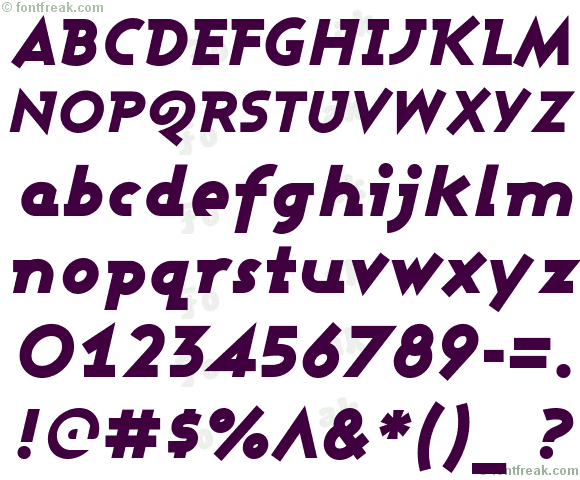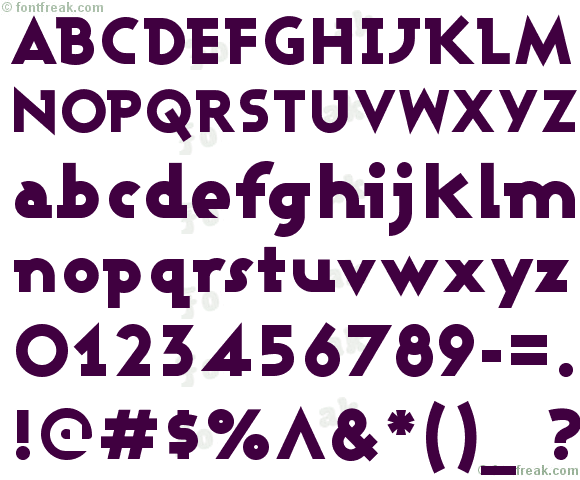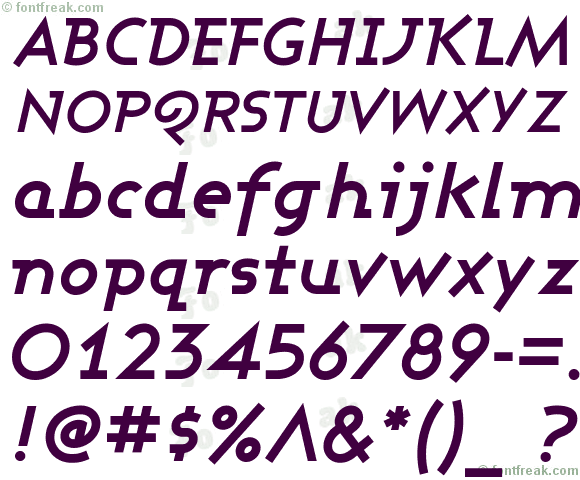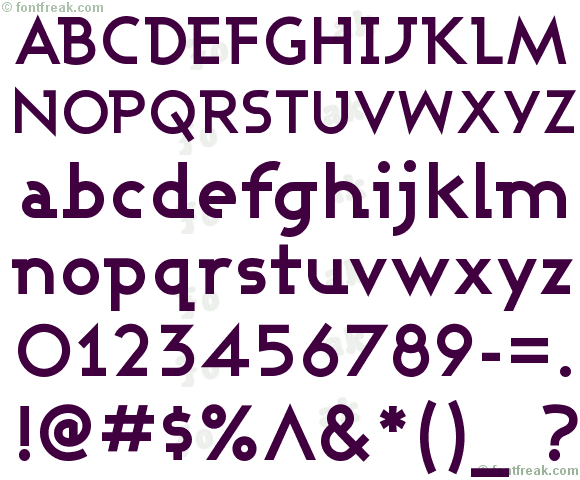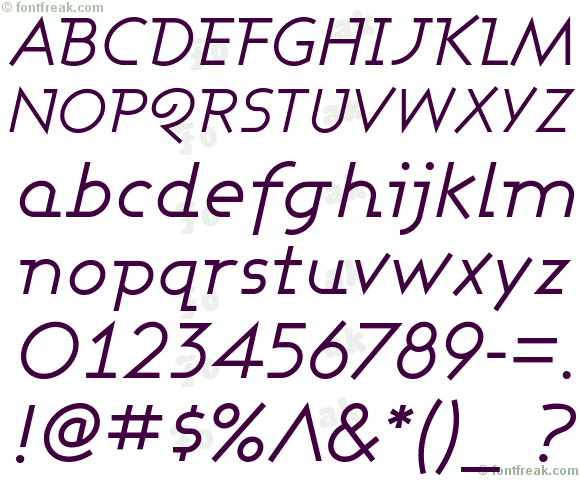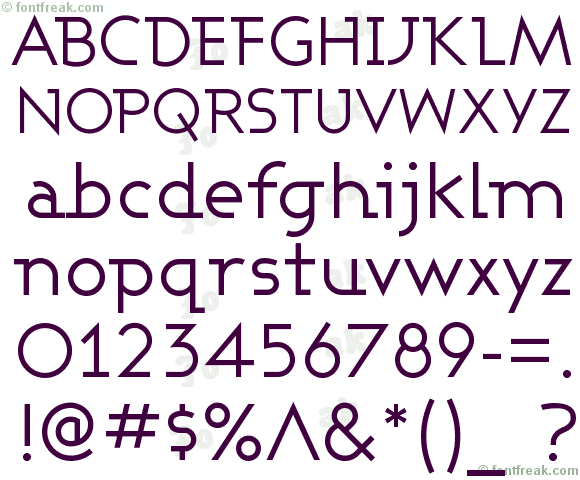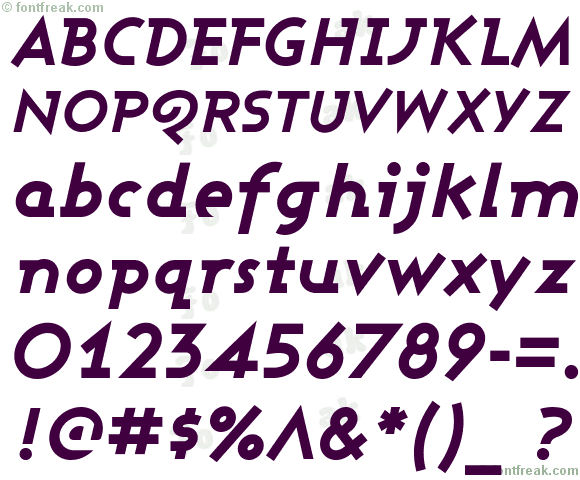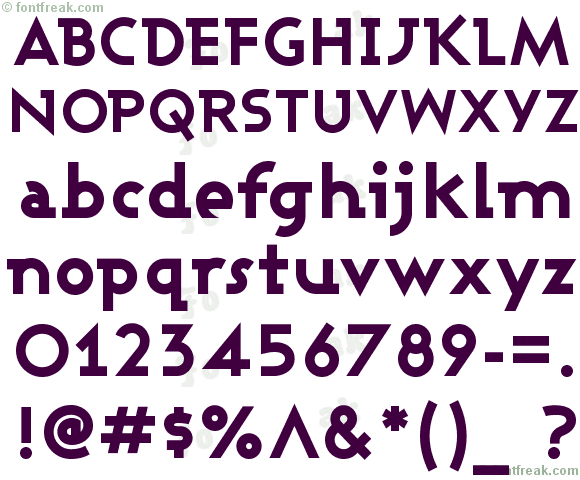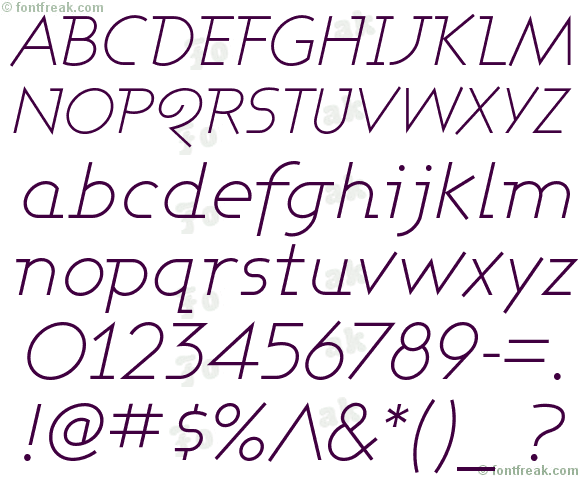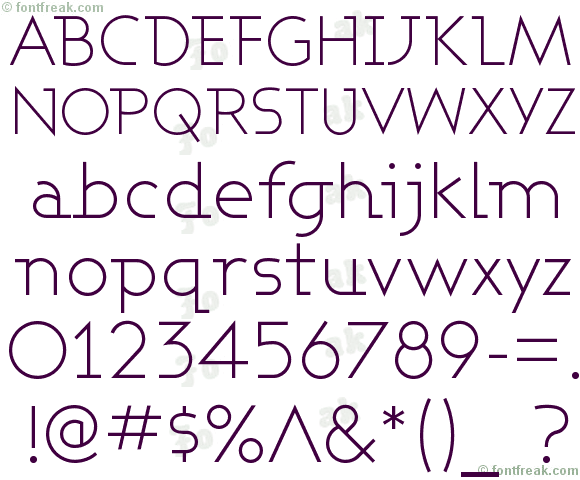
About Ashby
The Ashby font, created by Apostrophic Labs, is a striking extra-bold typeface that effortlessly combines modern aesthetics with classic elegance. This sans-serif font features a strong stroke weight that creates a commanding presence, making it an excellent choice for attention-grabbing designs. The carefully balanced spacing between characters adds to its readability, while the subtle contrast in line thickness enhances its visual appeal. The overall design of the Ashby font is characterized by clean lines and a contemporary feel, making it versatile for various applications.
Ideal for a range of projects, the Ashby font excels in use cases such as movie posters, where its boldness can draw the eye and create a dramatic effect. It also shines in branding materials for small businesses, ensuring logos and promotional graphics stand out in competitive markets. Additionally, the font is suitable for restaurant menus, providing a modern touch that enhances the dining experience while maintaining legibility. Wedding invitations can also benefit from Ashby’s elegant yet bold character, adding a unique flair to the special occasion.
What truly sets the Ashby font apart is its ability to blend strength and sophistication, making it a go-to typeface for those who seek to make a statement. With its dynamic presence and versatility, Ashby is not just a font; it’s a design element that can transform ordinary text into extraordinary visual experiences.